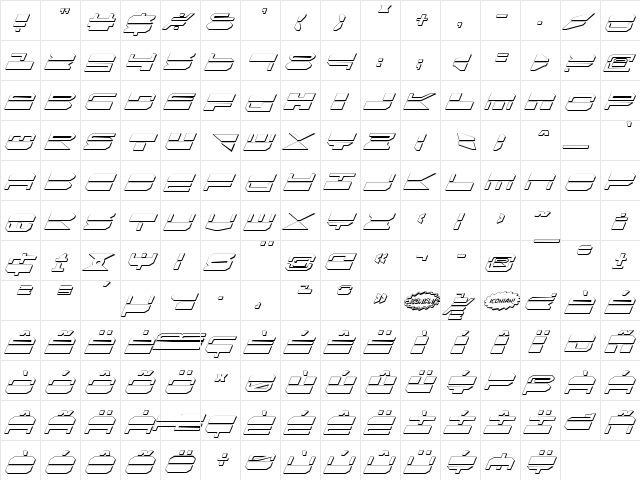
Quickmark Shadow Italic Shadow Italic
Design Context for Quickmark Shadow Italic Typeface
Quickmark Shadow Italic brings ornamental detail and strong personality to headlines and identities, where visual impact matters more than quiet functionality. Its italic angle brings a sense of urgency and motion to the letterforms.
Font Pairing: Pair with a clean neutral sans-serif for body copy to let Quickmark Shadow Italic's character lead without overwhelming the composition.
Pro Tip: Use Quickmark Shadow Italic exclusively at display sizes — it was designed to be seen, not read at length. Let a neutral companion handle body copy.